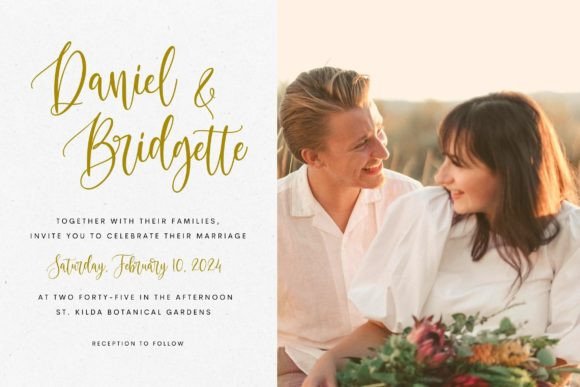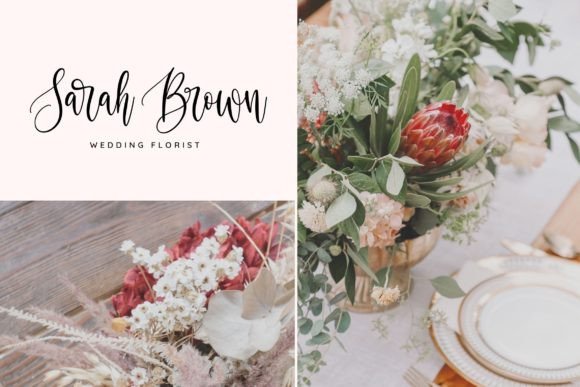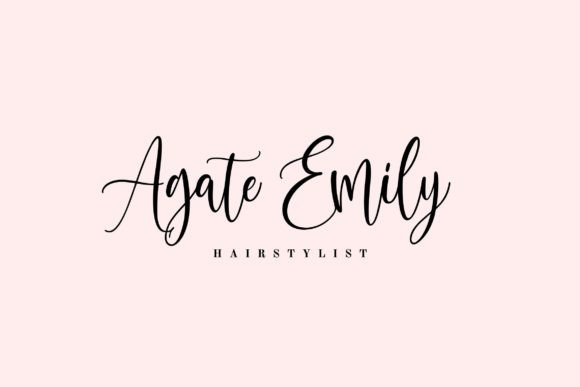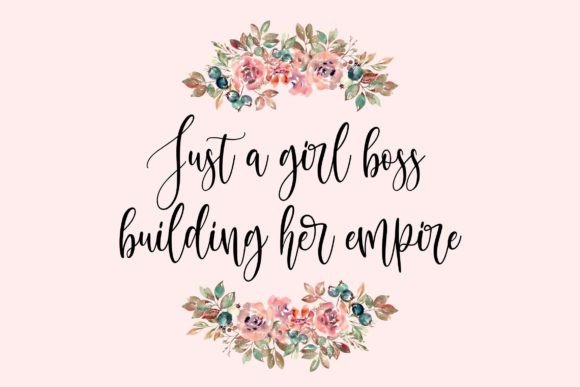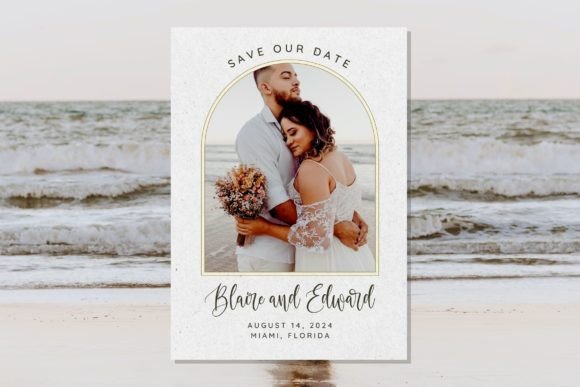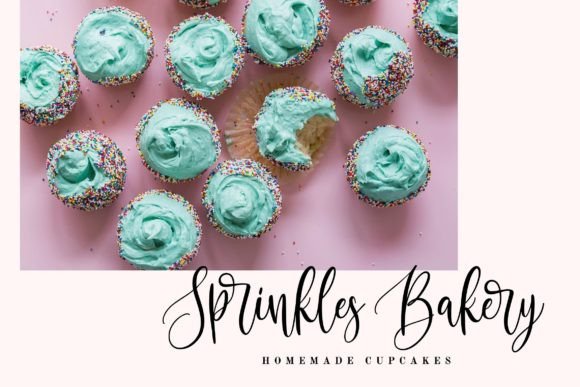
The Summer Vibes Font That’s Stealing My Heart: Beloved Summer
I’ll never forget the summer I spent struggling to find the perfect font for a client’s wedding invitation project. The design brief was simple: elegant, playful, and summery. Sounds easy, right? Wrong! I scoured font websites, tried out dozens of scripts, and still, nothing felt quite right. That was until I stumbled upon Beloved Summer, a bouncy and friendly calligraphy script font that instantly captured the carefree spirit of the season.
First Impressions: A Love Letter to Beloved Summer
Beloved Summer has been a game-changer in my design projects. Its beautiful, well-balanced characters make it incredibly versatile, pairing well with a wide range of designs. Whether you’re working on a whimsical craft project or a sophisticated branding campaign, this font brings a touch of summer magic to your creations.
- ✨ Beautifully crafted, bouncy characters that exude a sense of playfulness and joy
- ✅ Well-balanced and harmonious letterforms that work well in a variety of design contexts
- 💫 Highly legible, even at smaller font sizes
- 🎨 Extensive OpenType features, including glyphs and stylistic alternates, offering endless creative possibilities
- ⚠️ Some users might find the font’s bouncy nature too playful for very formal or traditional designs
- 🤔 Limited availability of certain special characters or diacritical marks, which might be a consideration for projects requiring specific language support
Designing with Alternatives: 4 Fonts Similar to Beloved Summer
- Kaitlynn: A whimsical, handwritten script with a similar bouncy feel to Beloved Summer. Use Kaitlynn for playful, feminine designs.
- Alex Brush: A beautiful, elegant script font with a more refined, sophisticated personality. Choose Alex Brush for formal events or luxury branding.
- Mrs. Saint: A charming, vintage-inspired script font with a touch of elegance. Use Mrs. Saint for wedding designs, invitations, or romantic projects.
- Pacifico: A modern, elegant script font with a relaxed, summery vibe. Select Pacifico for designs that require a more laid-back, coastal feel.
The Story Behind Beloved Summer: A Designer’s Inspiration
According to the font’s creator, Beloved Summer was inspired by the carefree spirit of summer and the joy of handwritten lettering. The designer aimed to craft a font that would evoke feelings of warmth, happiness, and playfulness, making it perfect for designs that require a touch of whimsy and personality.
Q: What makes Beloved Summer suitable for a wide range of designs?
A: Beloved Summer’s well-balanced characters and beautiful craftsmanship make it a versatile font that can be used in various design contexts, from playful crafts to sophisticated branding.
Q: Does Beloved Summer support multiple languages?
A: Beloved Summer supports a range of languages, but it’s essential to check the font’s character set to ensure it covers your specific language requirements.
Q: Can I use Beloved Summer in both print and digital designs?
A: Absolutely! Beloved Summer is a versatile font that can be used in both print and digital designs, from business cards and brochures to social media graphics and website headers.